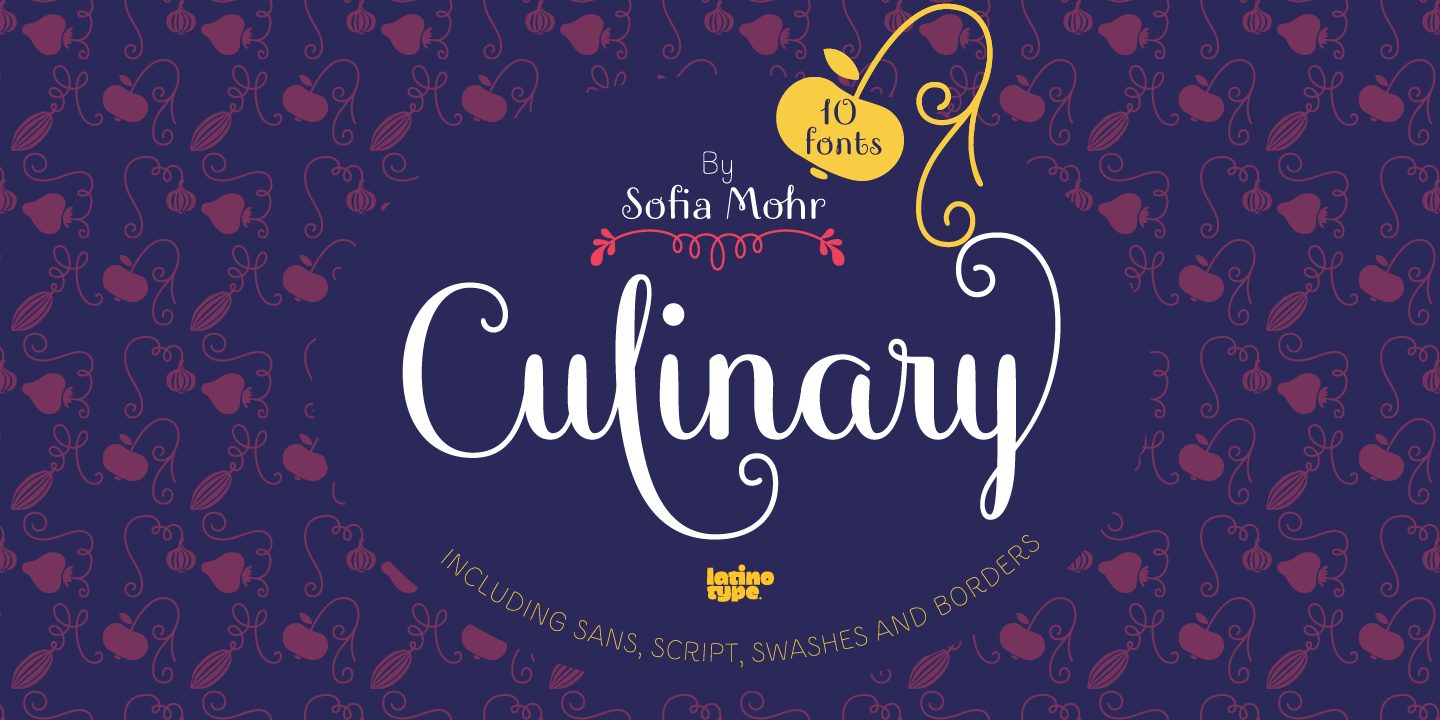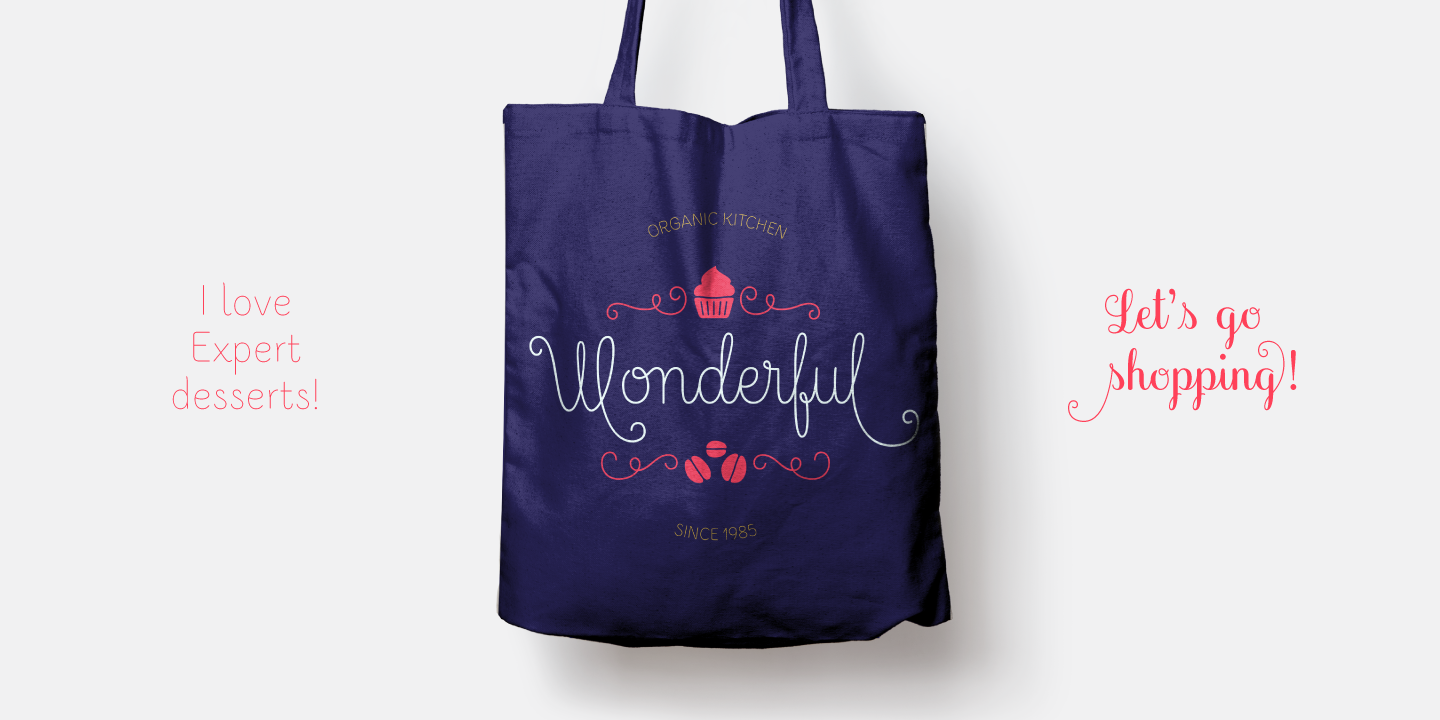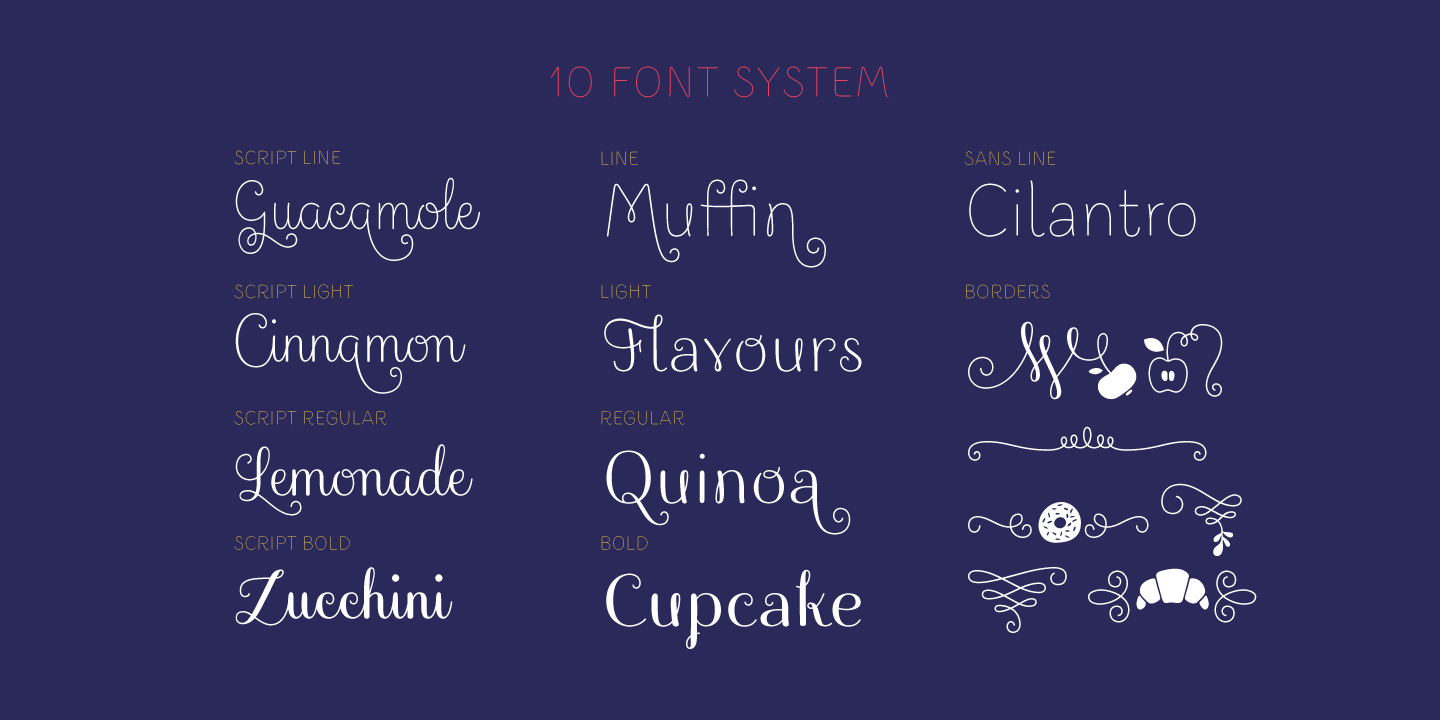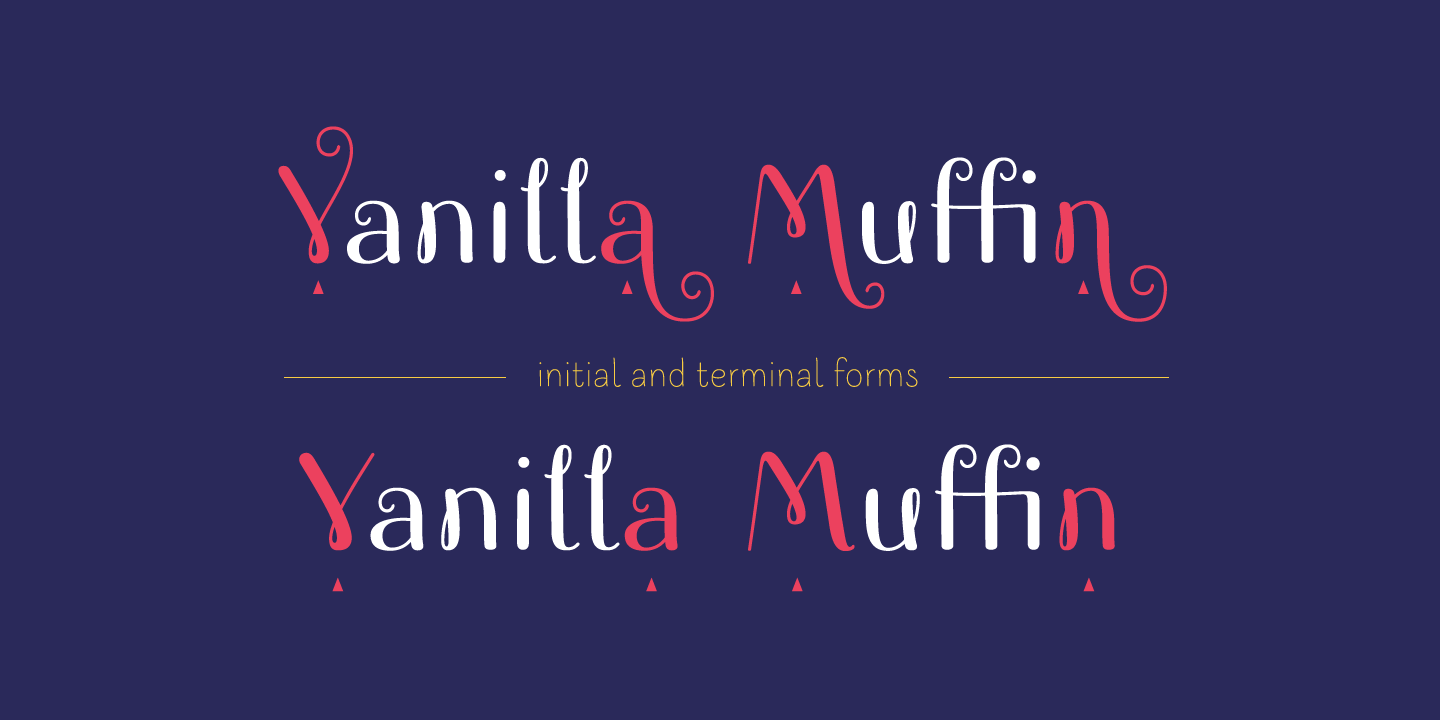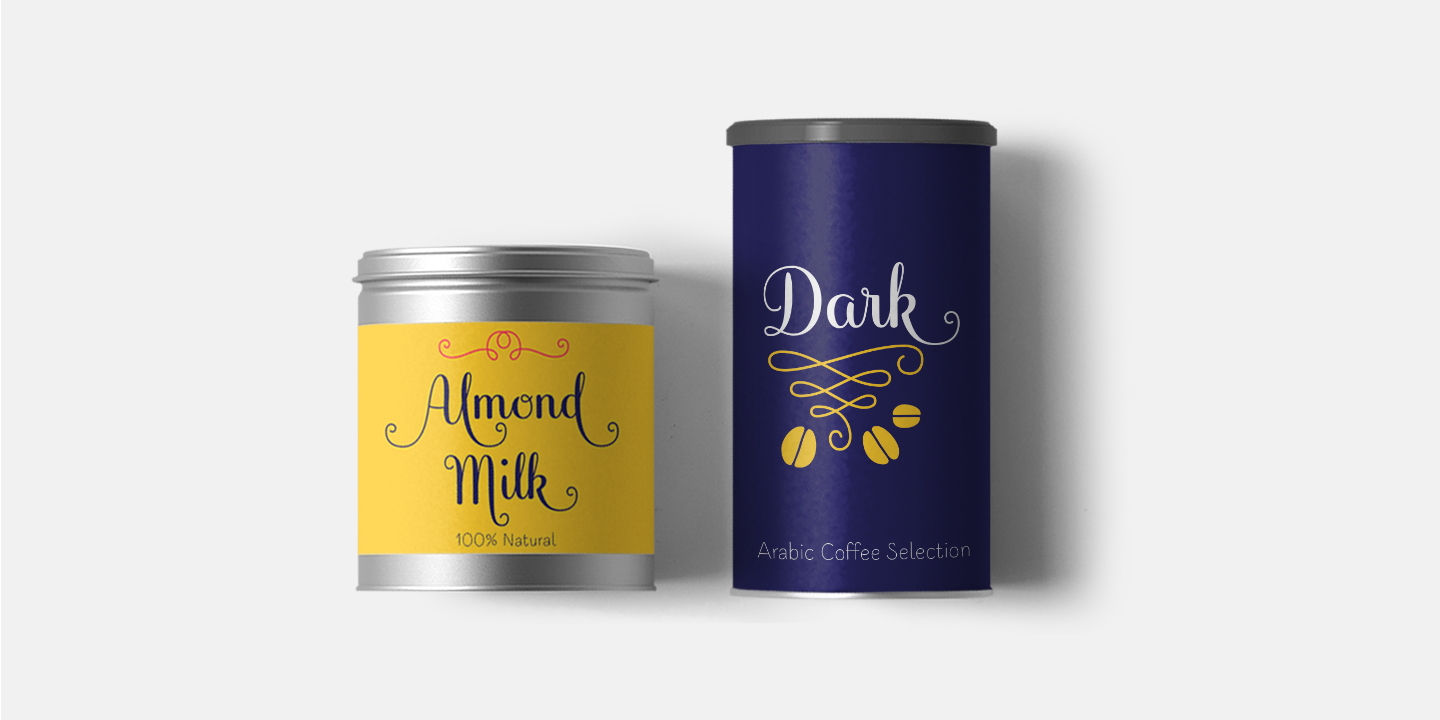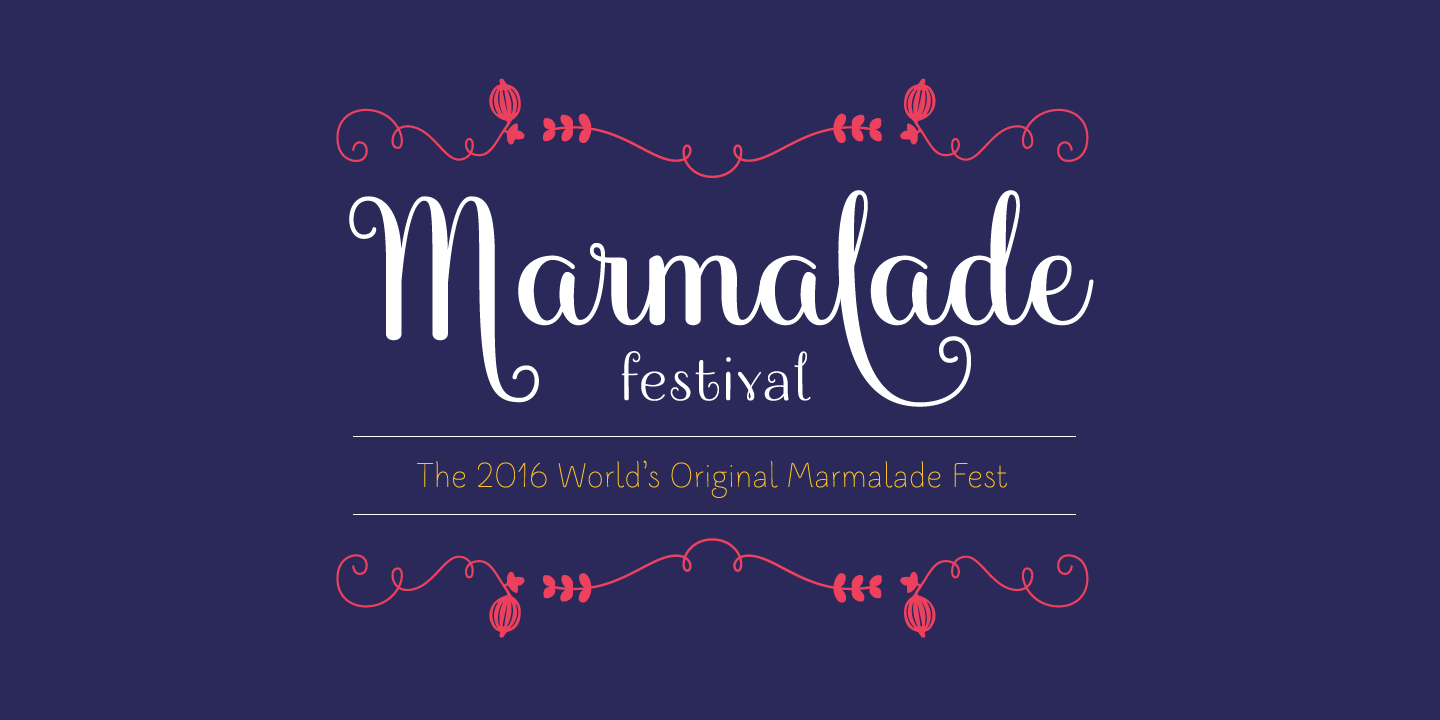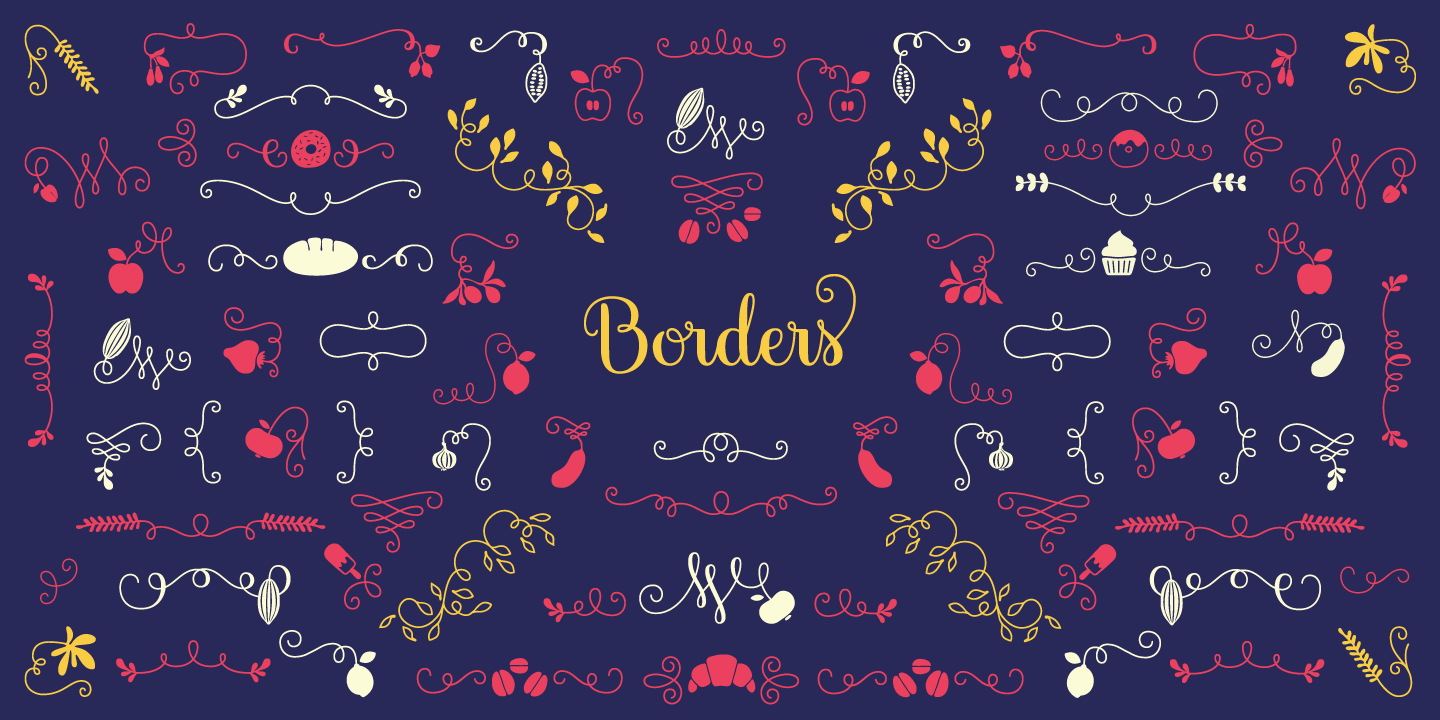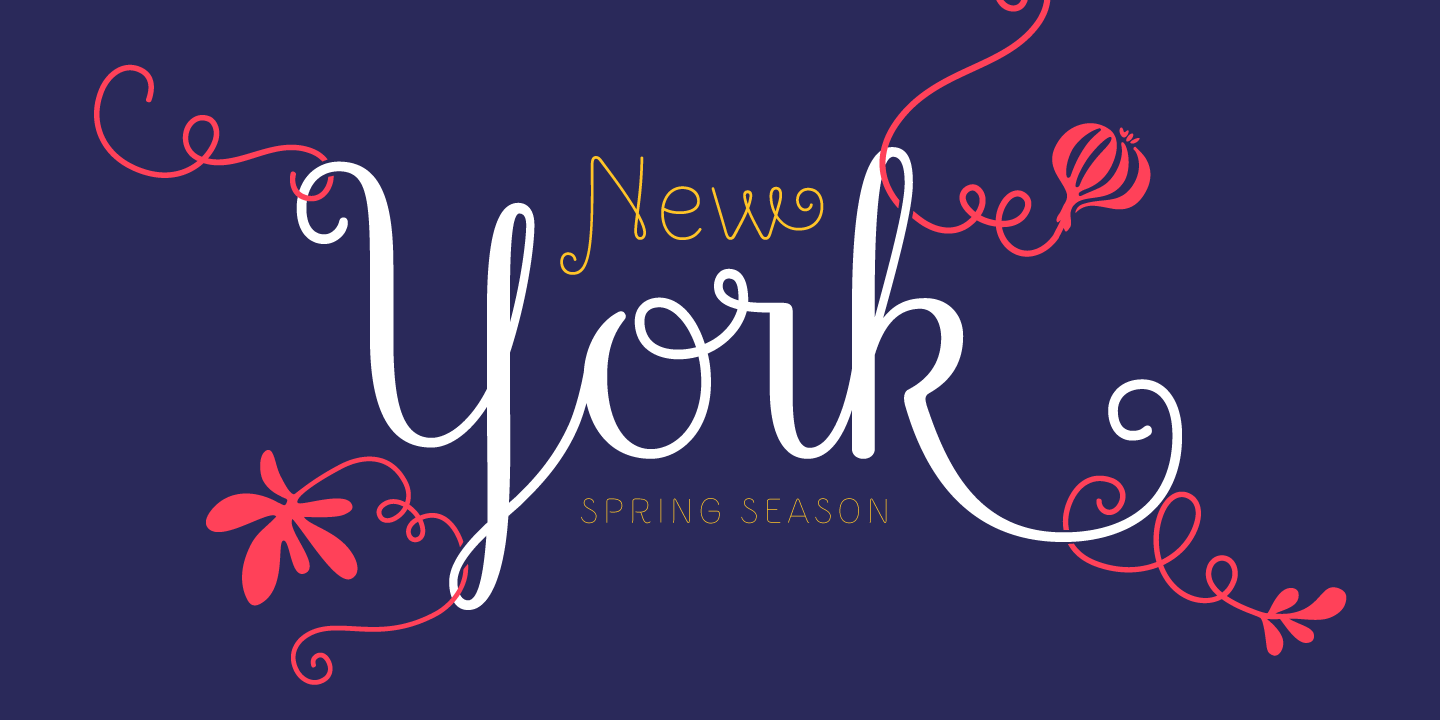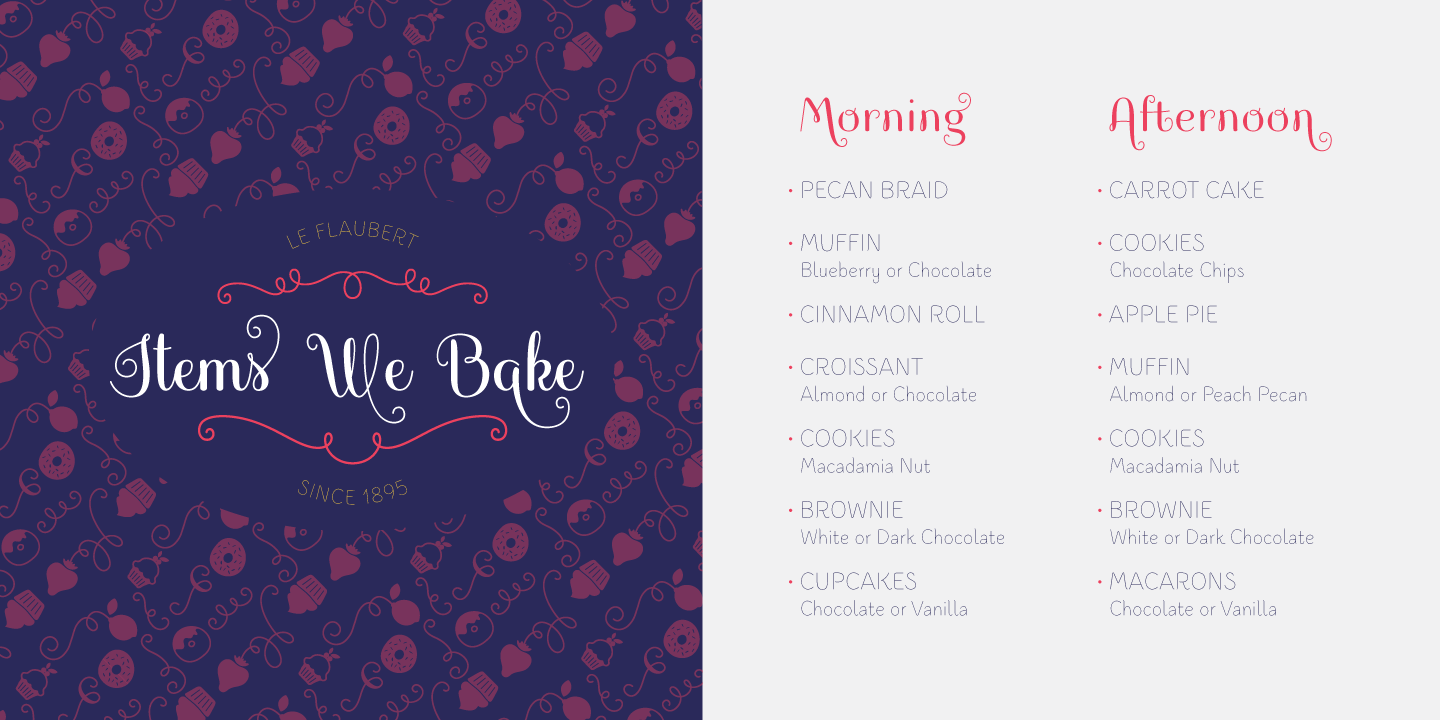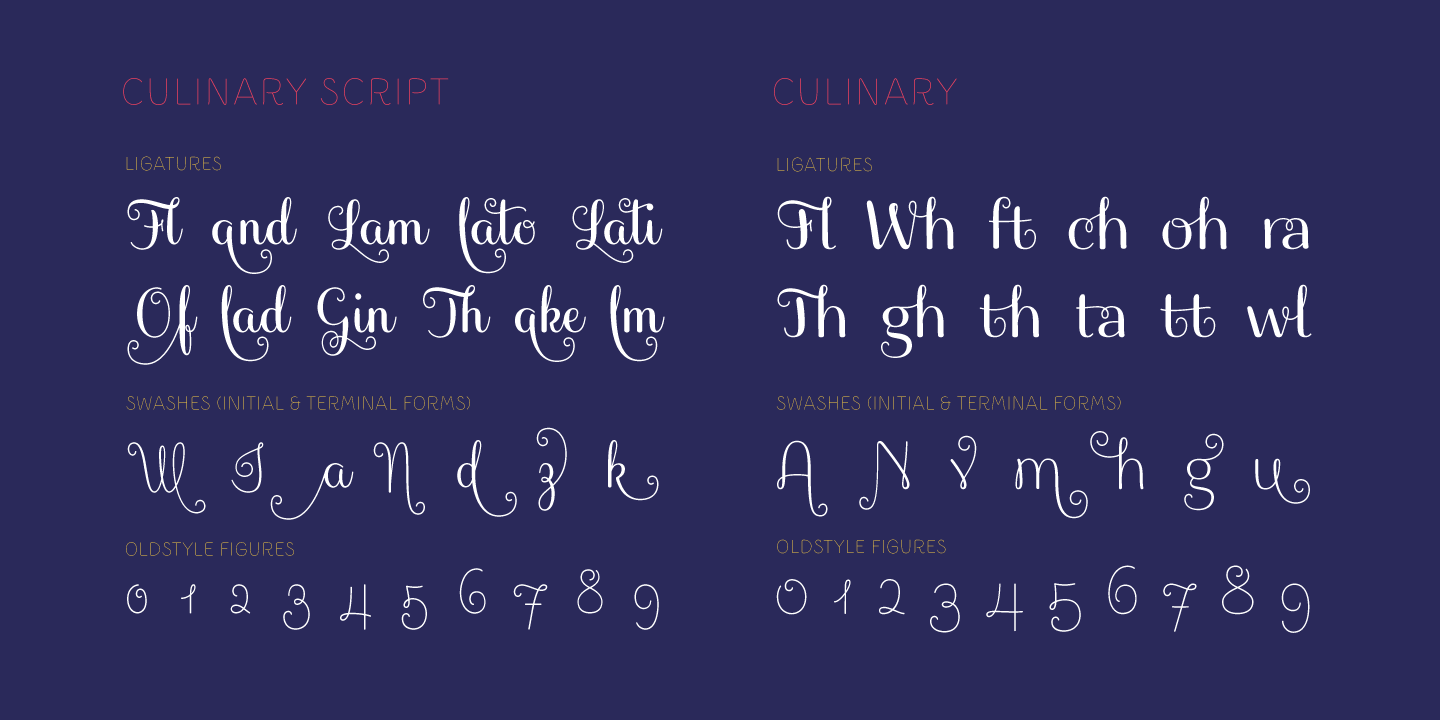
Culinary Complete Family (10 fonts)
Culinary is well-suited for packaging, restaurant and cafe branding, bakeries, logos, magazines, menus, recipe books, invitations and much more.
The OpenType features allow access to a wide set of characters, including ligatures, swashes, endings, initial and terminal forms, and lots of alternates.